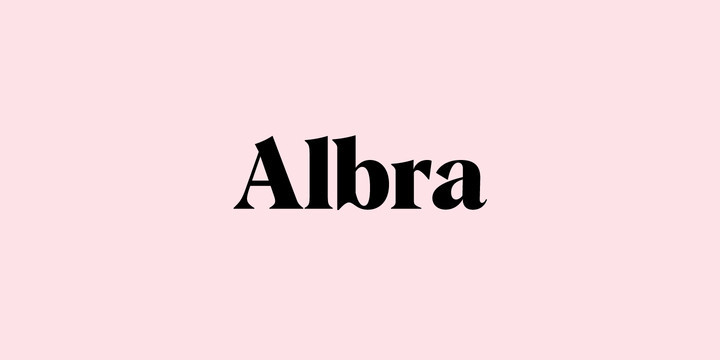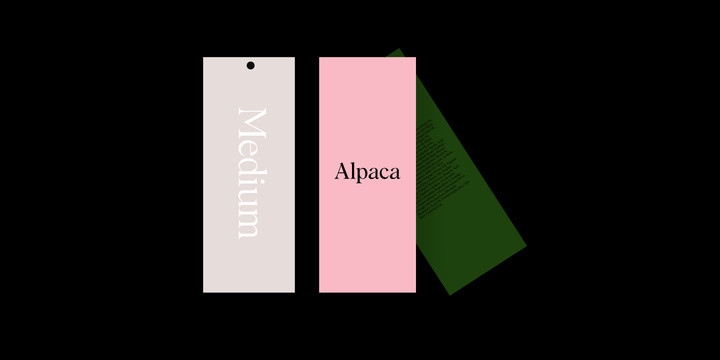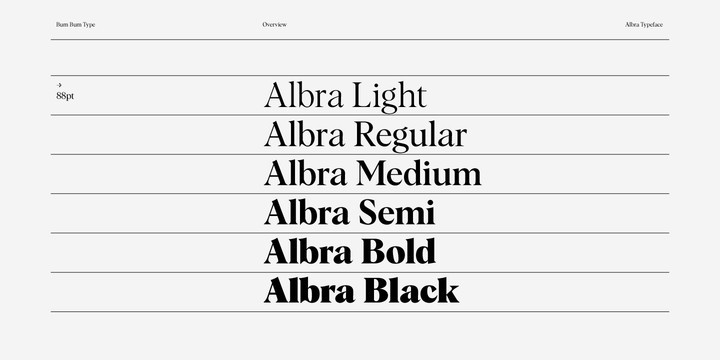
Albra Font
Albra is a high-contrast serif typeface for a wide range of application. Due the high contrast and warm curves paired with sharp bracketed serifs it works perfect for display purpose. A delicate and sophisticated choice, containing 486 Glyphs with large number of OpenType features.
Alba Text is the perfect companion typeface, with a higher contrast and wider spacing its works perfectly for small headlines and text.